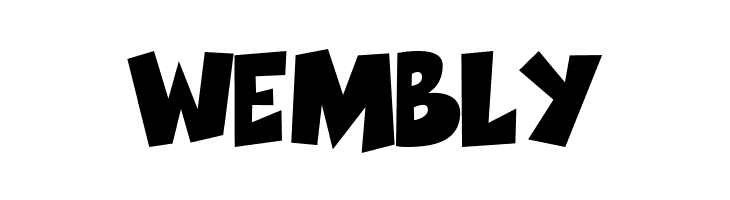
Zany Races Font
- Font: Zany Races
( Fonts by Marty Yawnick - www.typeadesign.com )
A playful, cartoon-like font with exaggerated, dynamic characters.